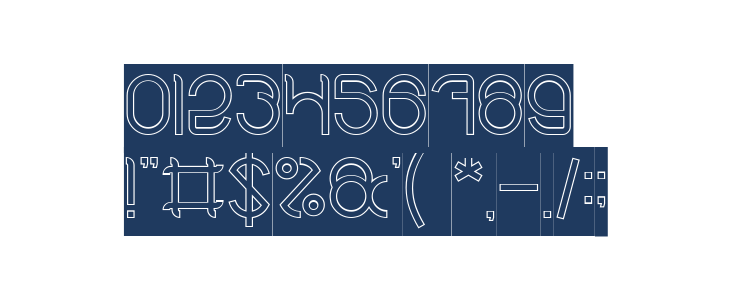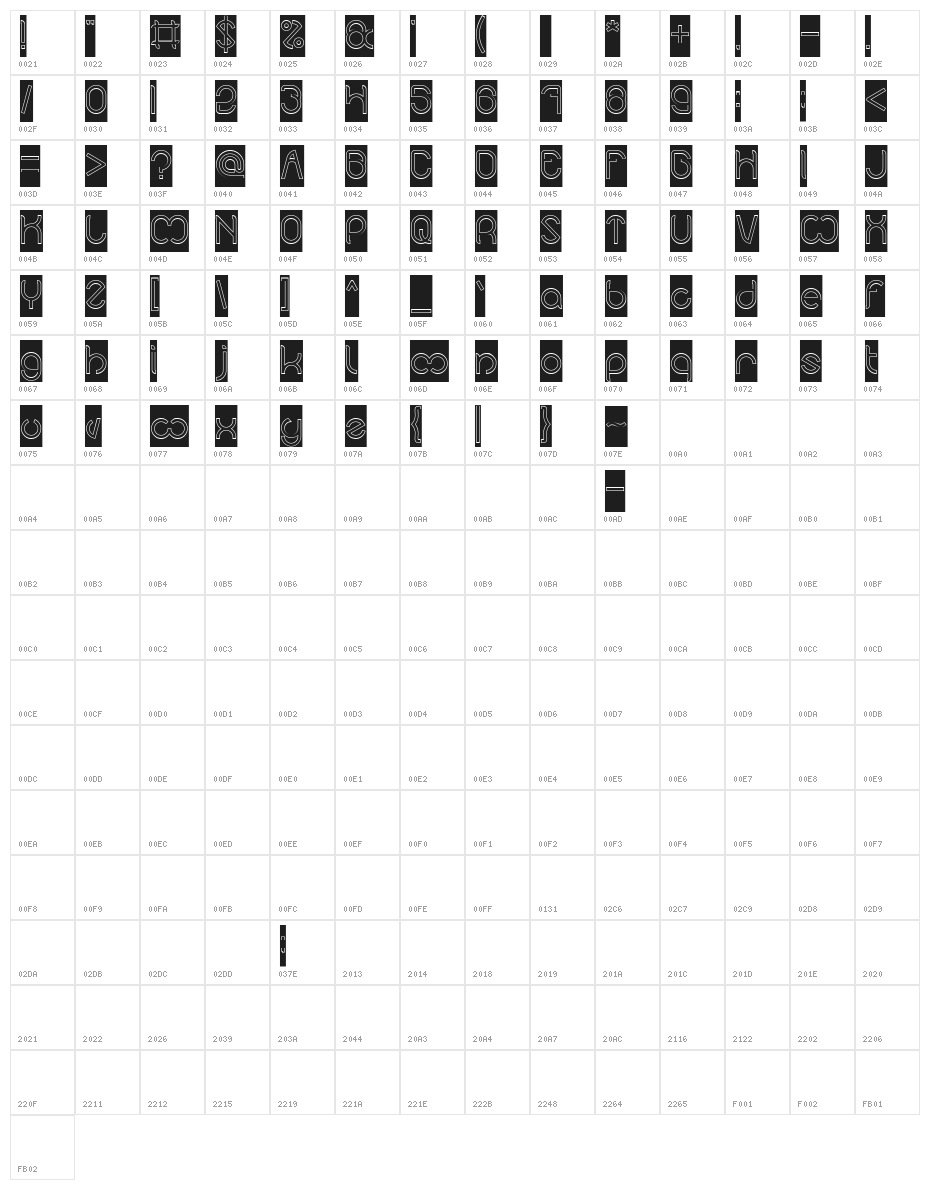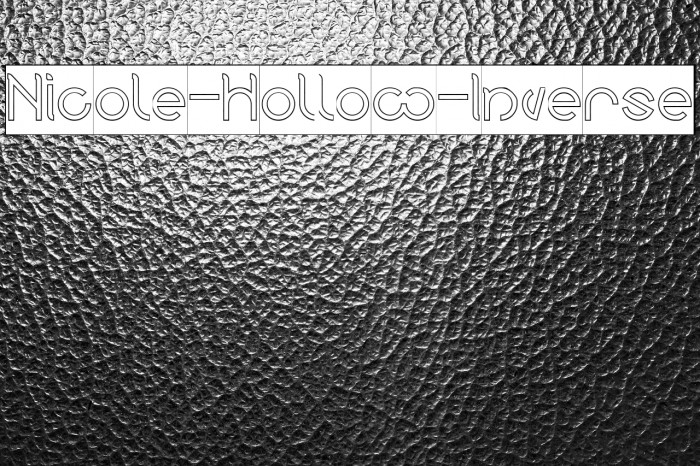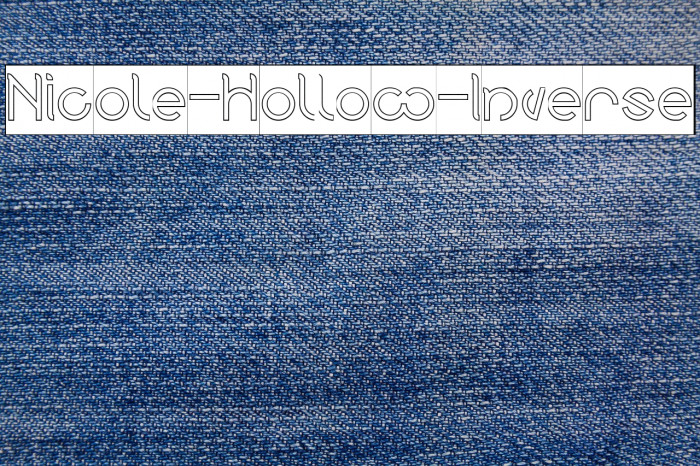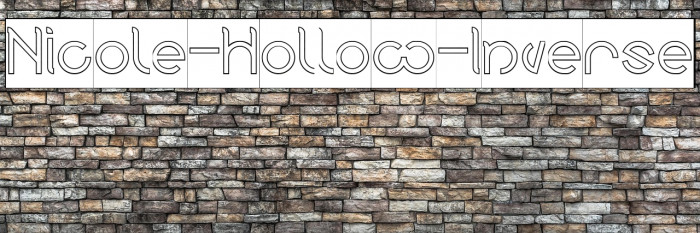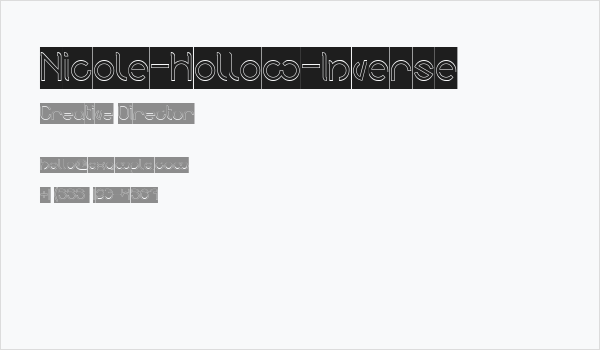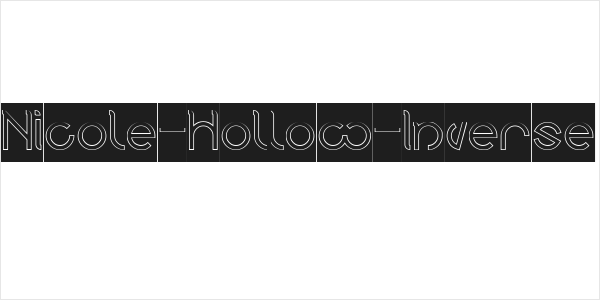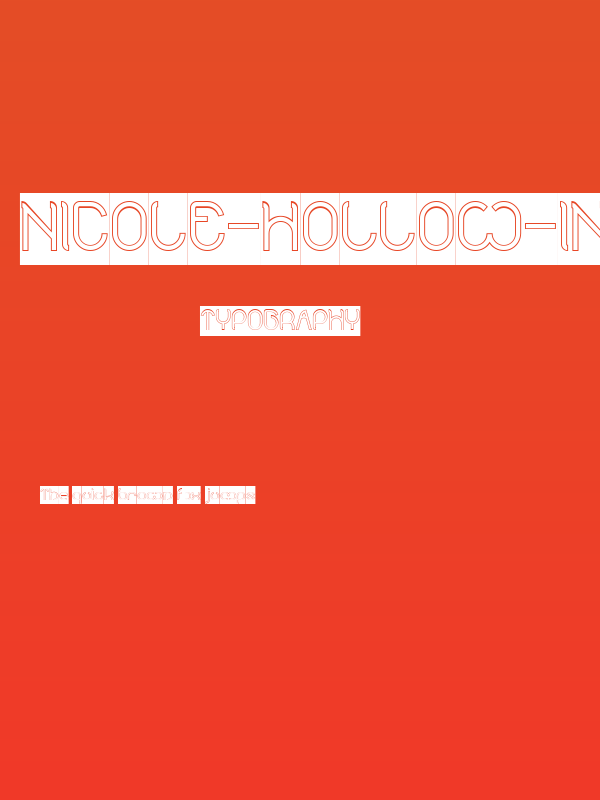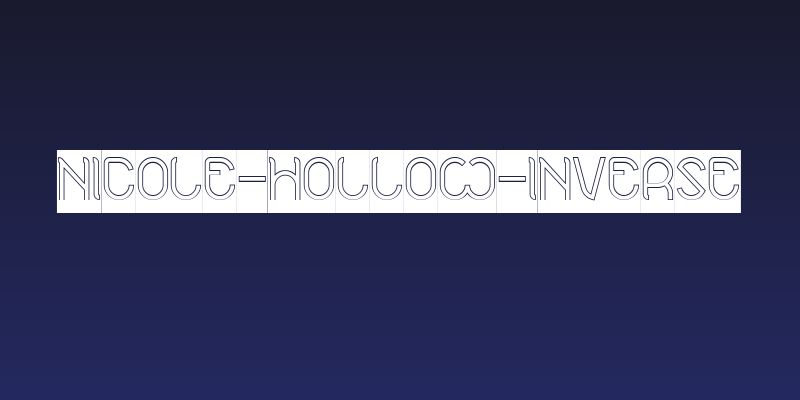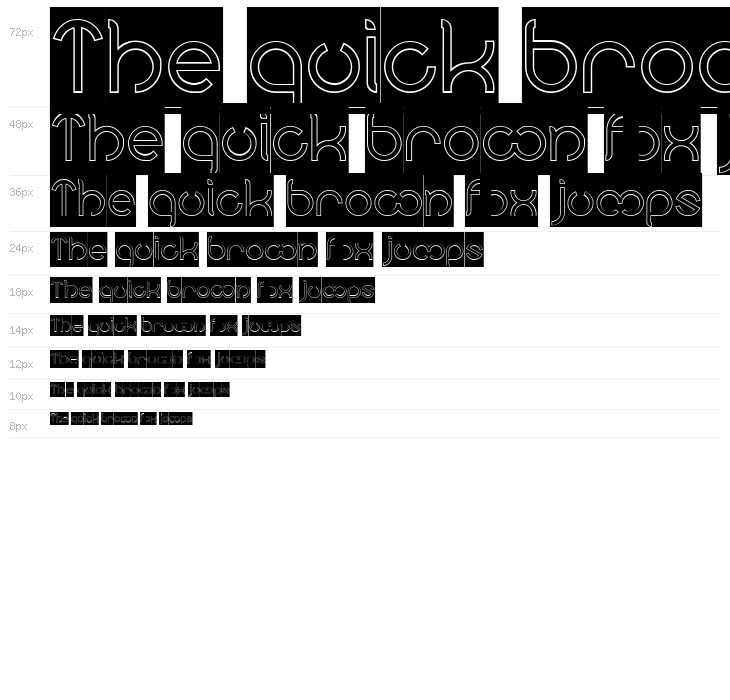
Nicole-Hollow-Inverse Font
Nicole-Hollow-Inverse Description
This font features a unique hollow design with an inverse style, creating a striking visual effect. The characters are outlined with a consistent thickness, giving them a modern and futuristic appearance. The uppercase and lowercase letters maintain a uniform style, with smooth curves and geometric shapes. The numerals and special characters follow the same design principles, ensuring a cohesive look across all glyphs. This font stands out due to its bold outlines and the negative space within each character, making it ideal for eye-catching designs.
| Proposed Projects | Ideal for futuristic branding, digital art, posters, and innovative product packaging. |